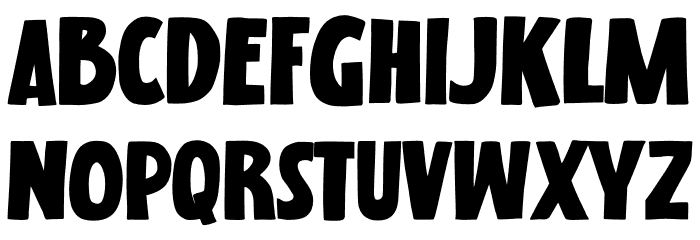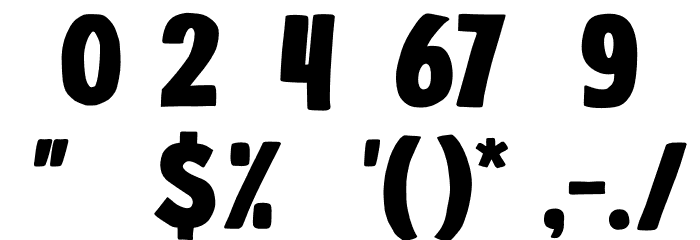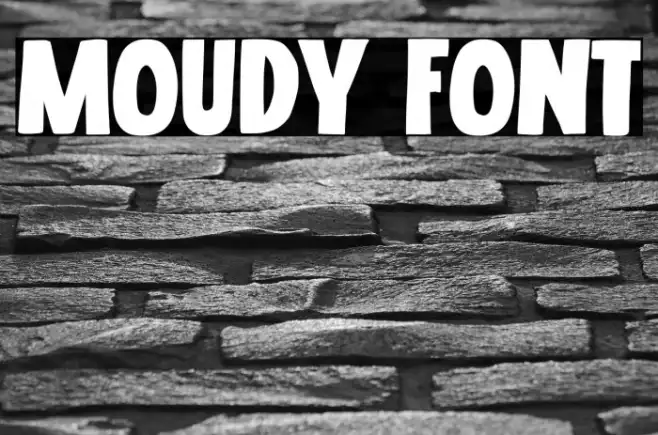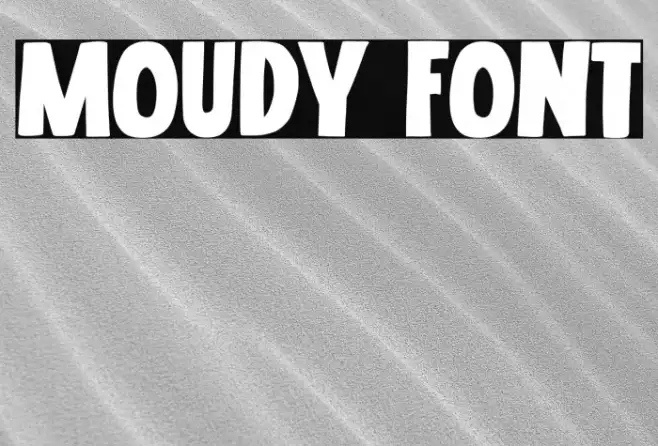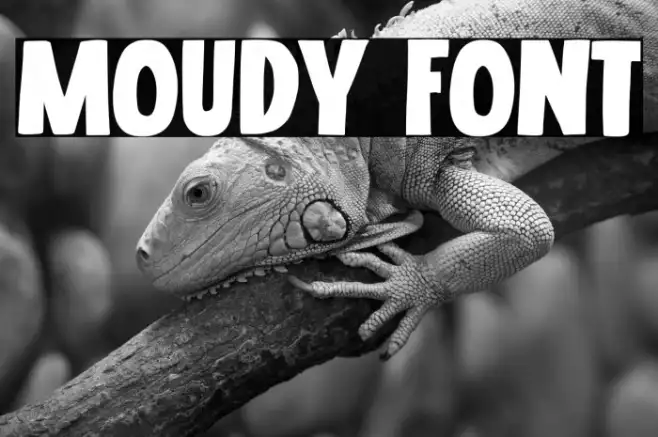
Moudy Font
This bold, decorative font features thick, rounded characters with a playful and dynamic appearance. The uppercase letters are robust and slightly irregular, giving a hand-drawn feel that adds personality and charm. The numbers and special characters maintain this style, ensuring consistency across all glyphs. The font's boldness and unique character shapes make it stand out, making it ideal for attention-grabbing designs. Its informal and lively style is perfect for projects that require a fun and engaging visual element.
A bold, decorative font with a playful, hand-drawn style.
- Proposed Projects: Ideal for posters, children's books, playful branding, and eye-catching headlines.